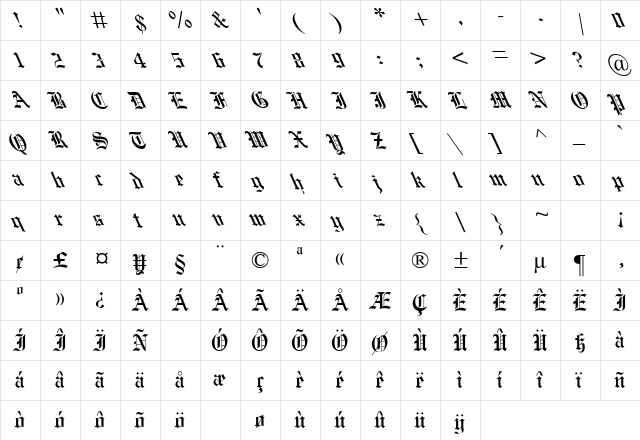
MEngravers Old English Leftie Regular
Design Context for MEngravers Old English Leftie Typeface
MEngravers Old English Leftie is a composed and adaptable typeface that performs quietly and consistently across a wide range of design contexts.